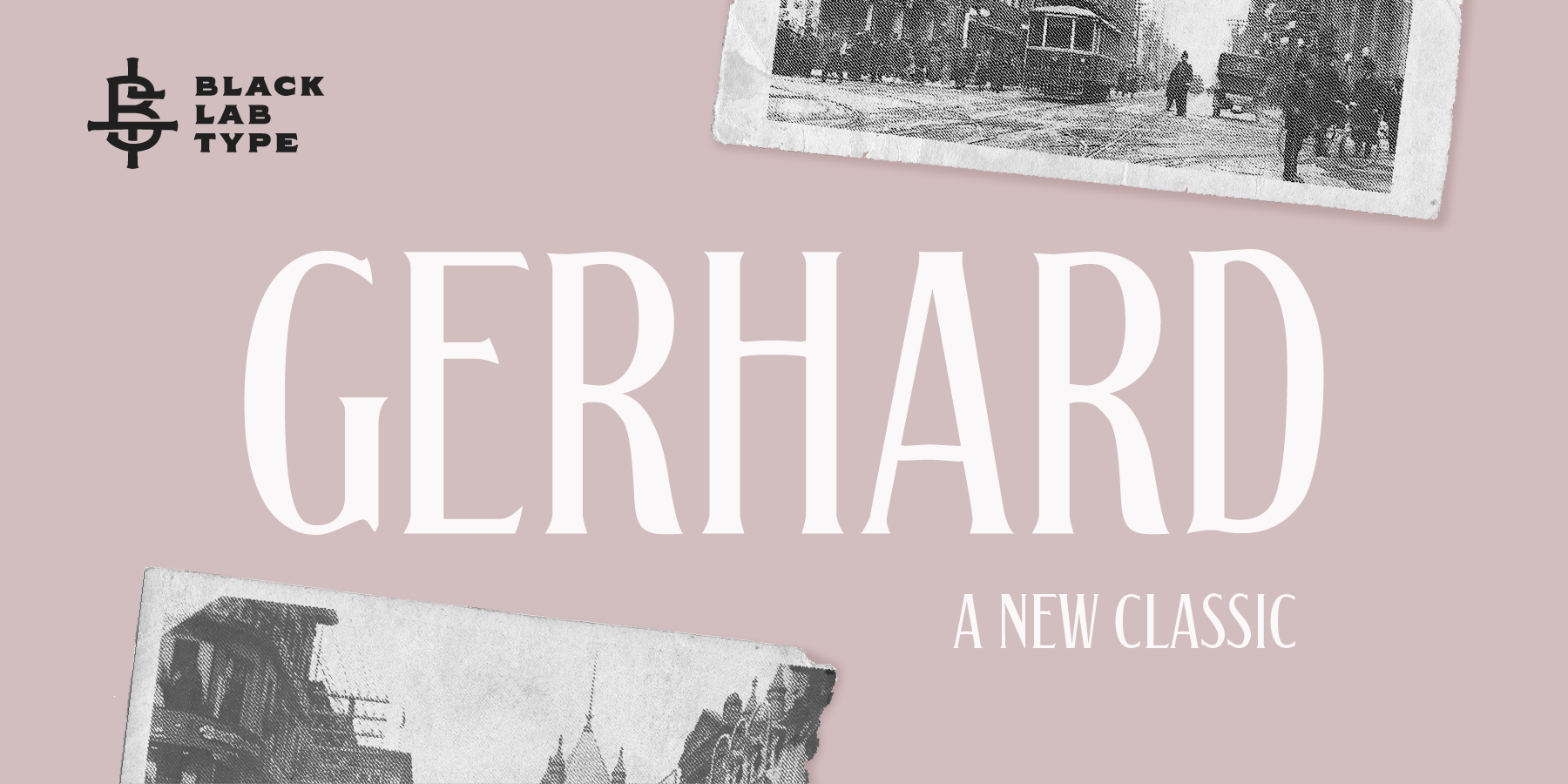
BLT Gerhard Font is perfect for German brewery branding, traditional European restaurant signage, craft beer packaging, Bavarian festival posters, authentic German deli logos, heritage food product labels, Oktoberfest marketing materials, and European cultural celebration campaigns. This authentic typeface excels in applications where German heritage and European tradition are essential.
What makes BLT Gerhard Font so exciting is its authentic ability to capture the rich cultural heritage and traditional craftsmanship of German design through robust, Germanic-inspired letterforms that embody the strength of European artisan traditions and the warmth of German hospitality culture. The font features solid character shapes with traditional German influences and heritage styling that evoke images of ancient beer halls, mountain villages, and the timeless traditions of Central European craftsmanship. Its culturally-rooted design philosophy combines Germanic authenticity with contemporary functionality, making it perfect for heritage brands seeking to convey traditional quality, cultural pride, and connection to German communities and European artisan culture.
BLT Gerhard Font belongs to the Germanic serif font family, specifically designed for European heritage and traditional branding applications. This typeface family emphasizes cultural visual impact through German-inspired styling and traditional character elements, ensuring authentic European presentation across various heritage and cultural celebration-focused design projects.
Honor German craftsmanship with BLT Gerhard Font Free Download, a typeface that embodies the traditional strength of Germanic heritage and European artisan culture. This distinguished font delivers exceptional authenticity for heritage applications, featuring comprehensive character sets with German symbols and traditional punctuation marks that capture the essence of European craftsmanship and cultural pride. Its solidly crafted letterforms maintain excellent readability while preserving the authentic Germanic aesthetic across various sizes, from small product labels to large festival entrance banners. The font's distinctive traditional personality makes it invaluable for designers creating heritage brands, German cultural materials, and European content where conveying authenticity, tradition, and Germanic craftsmanship is crucial for engaging German communities and European heritage audiences seeking genuine cultural experiences and traditional artisan quality.